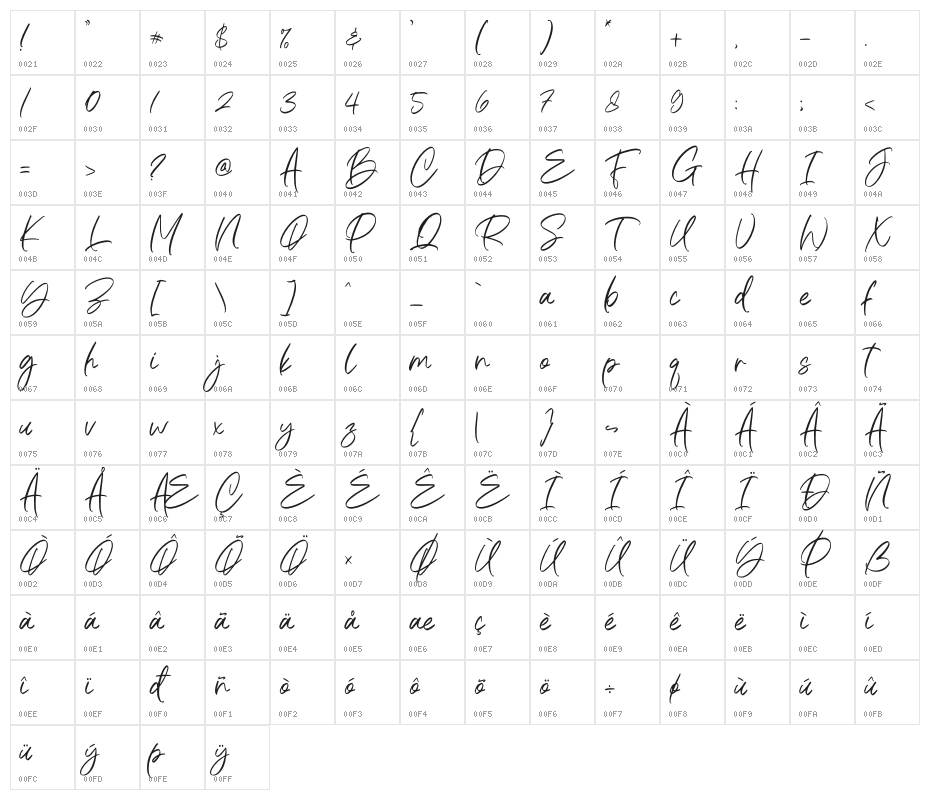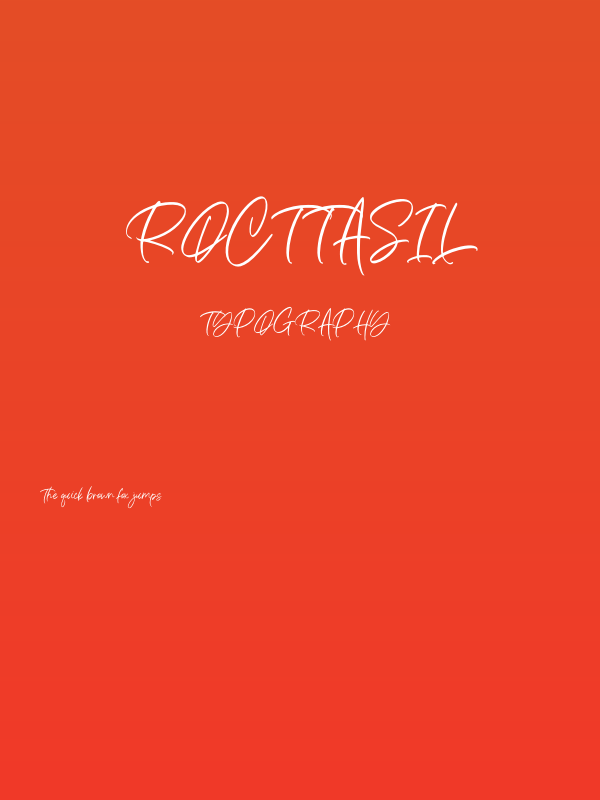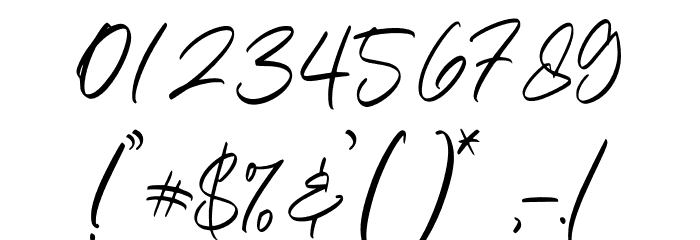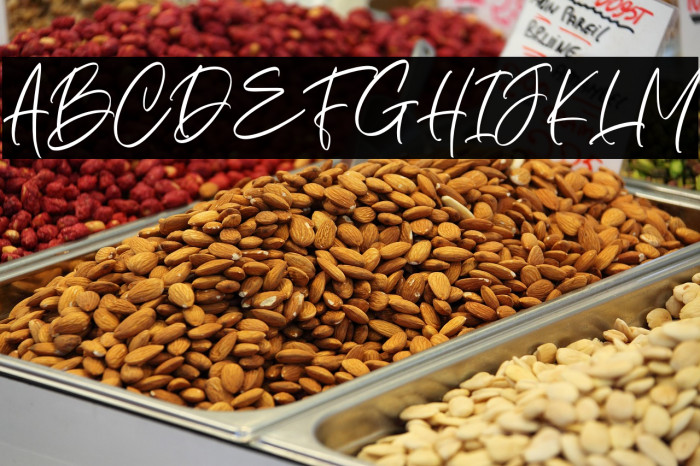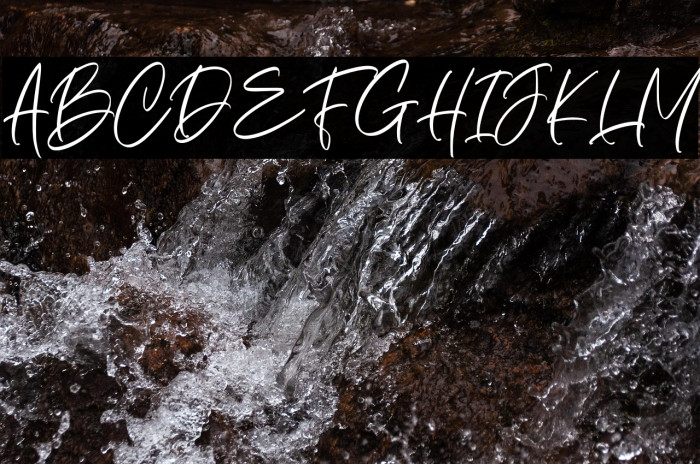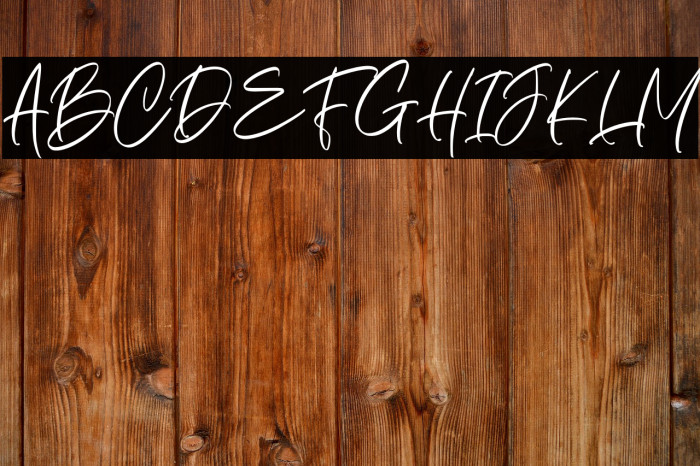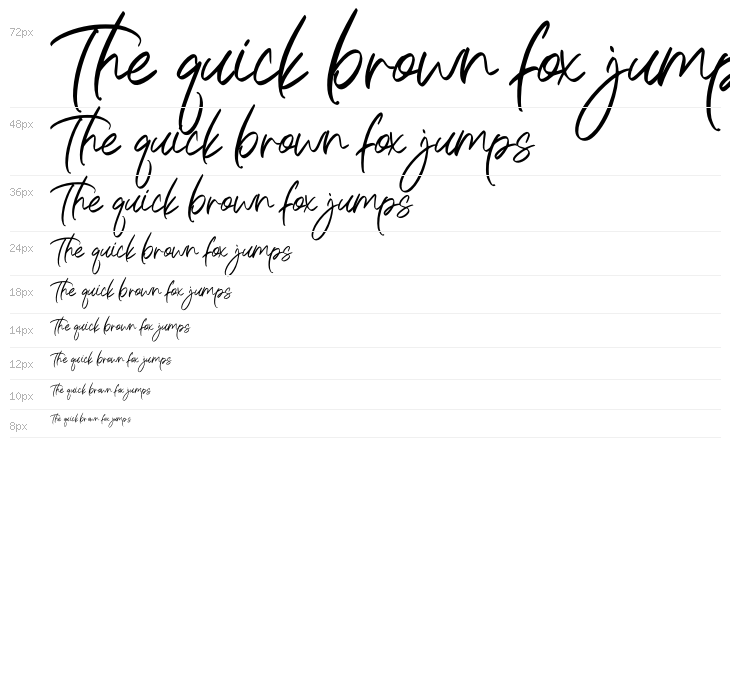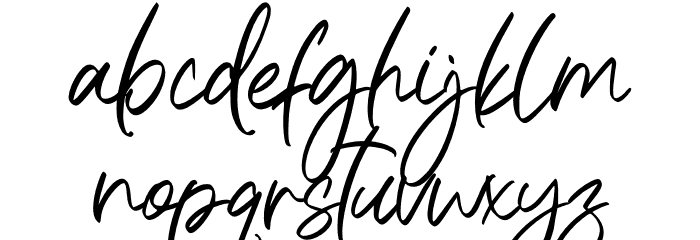
Rocttasil Font
Rocttasil Description
This font exudes a lively and dynamic energy with its fluid, cursive style. The characters are crafted with a natural, handwritten appearance, featuring smooth, flowing lines and elegant curves. The uppercase letters are bold and expressive, while the lowercase letters maintain a consistent rhythm and grace. The numerals are well-integrated, matching the overall style with a touch of sophistication. Special characters are thoughtfully designed, adding to the font's versatility. This font is perfect for projects that require a personal, artistic touch, such as invitations, branding, or creative posters.